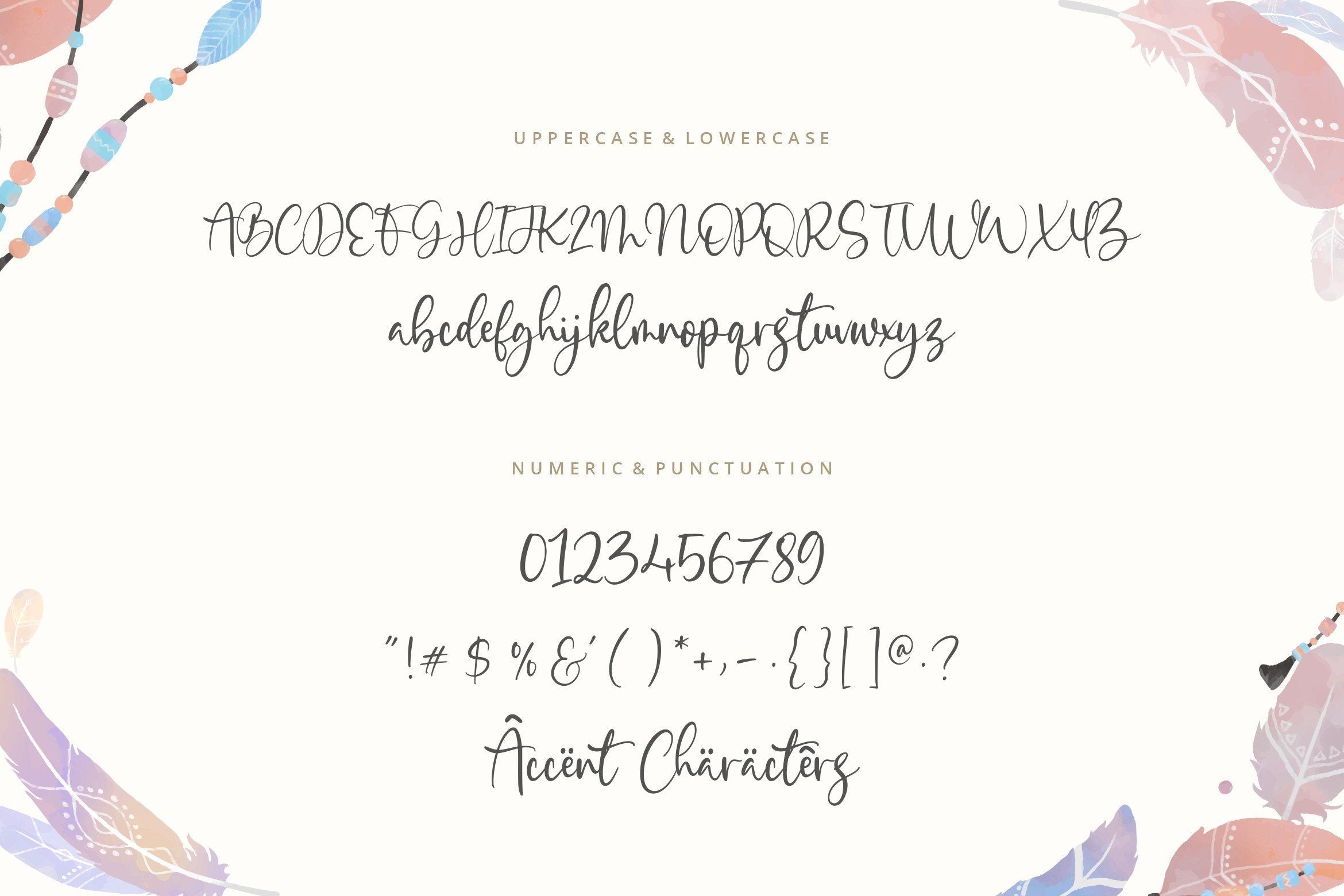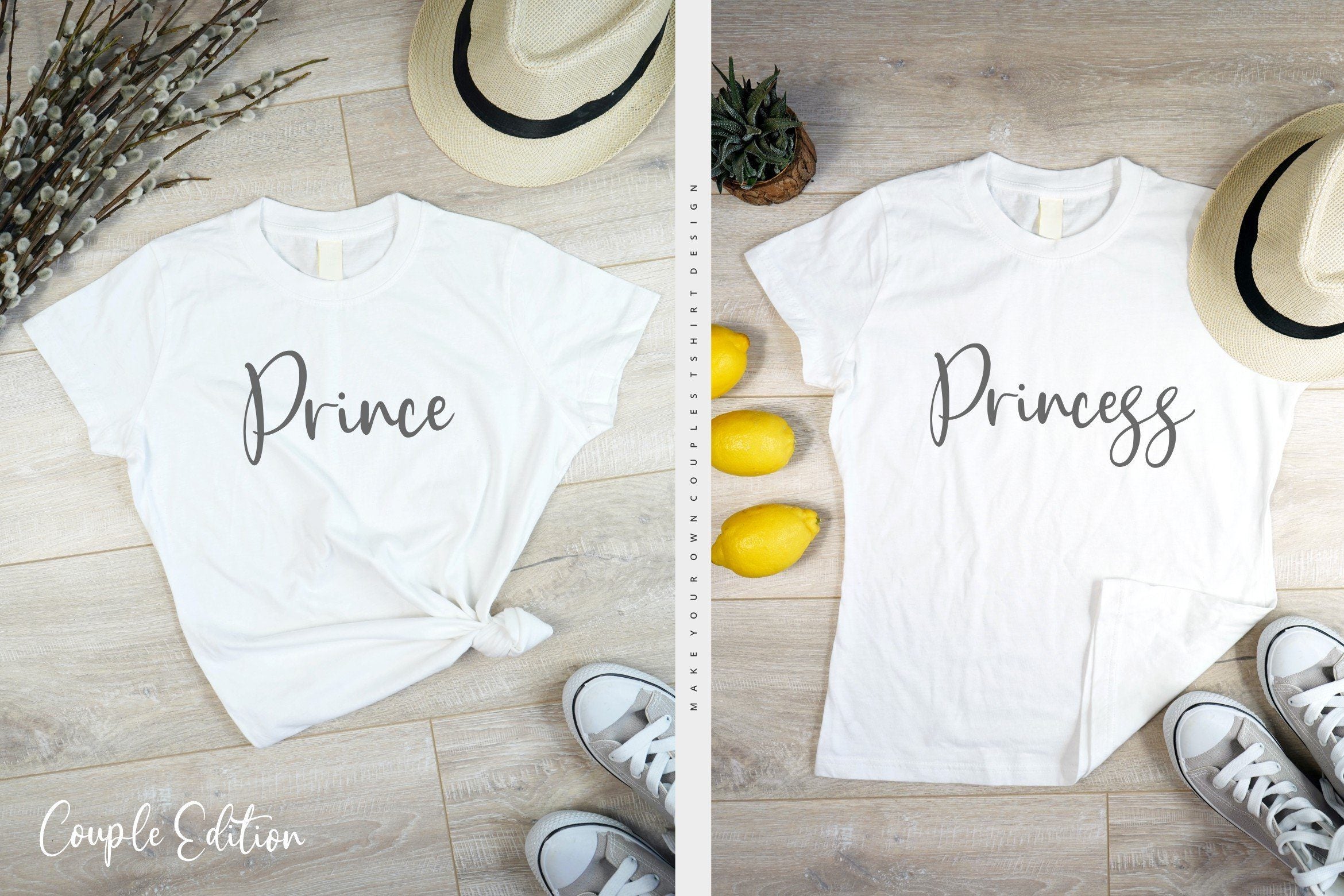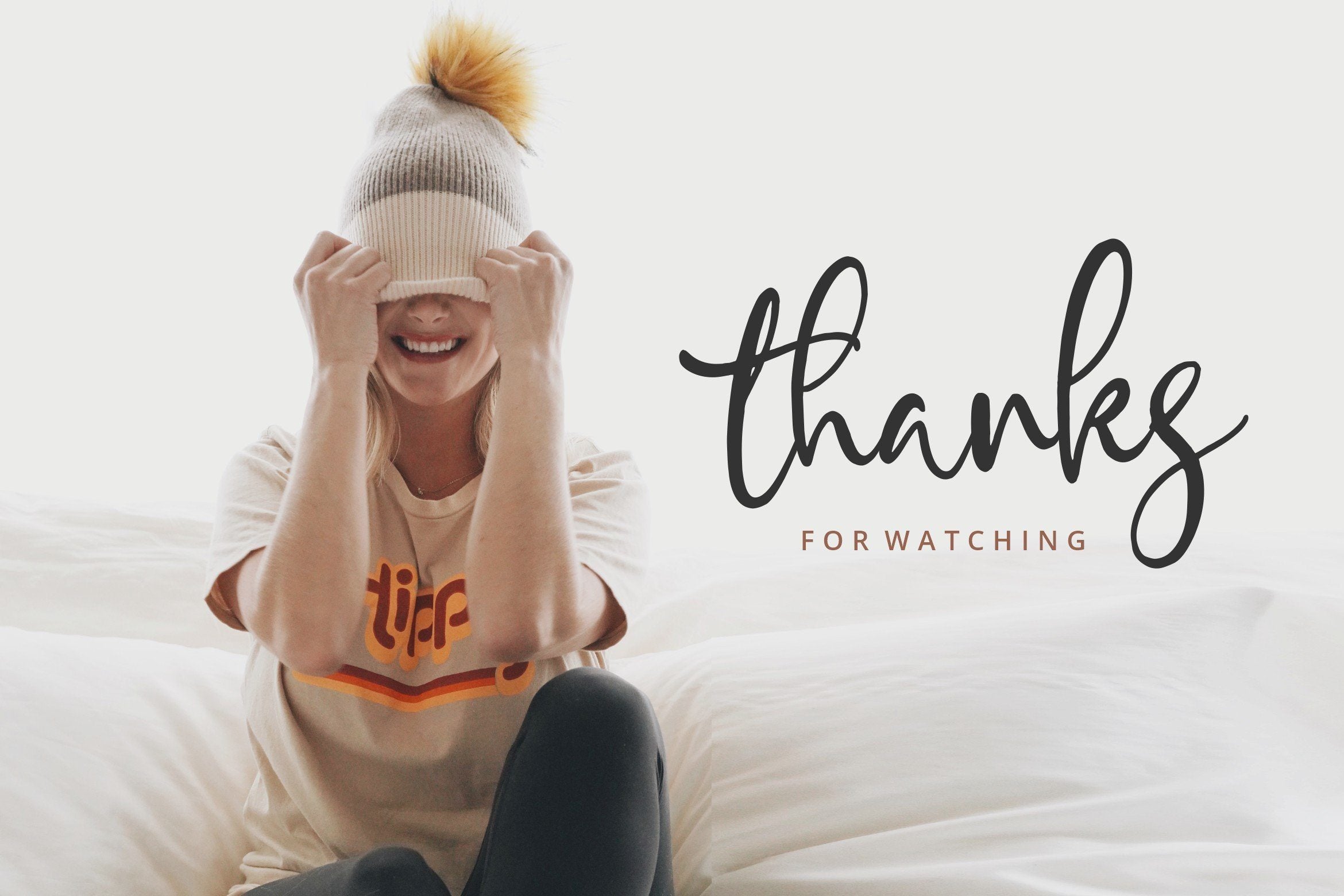
About Indian Feather Beautiful Handdrawn Font
Introducing by Balpirick Studio. Proudly Present, Indian Feather Font. Indian Feather is a Beautiful Handdrawn Font. Indian Feather is a romantic and sweet calligraphy typeface with characters that dance along the baseline. It will add a luxury spark to any design project that you wish to create! This font includes TTF, OTF and WOFF, Indian Feather also multilingual support. Enjoy the font, feel free to comment or feedback, send me PM or email. Thank you!